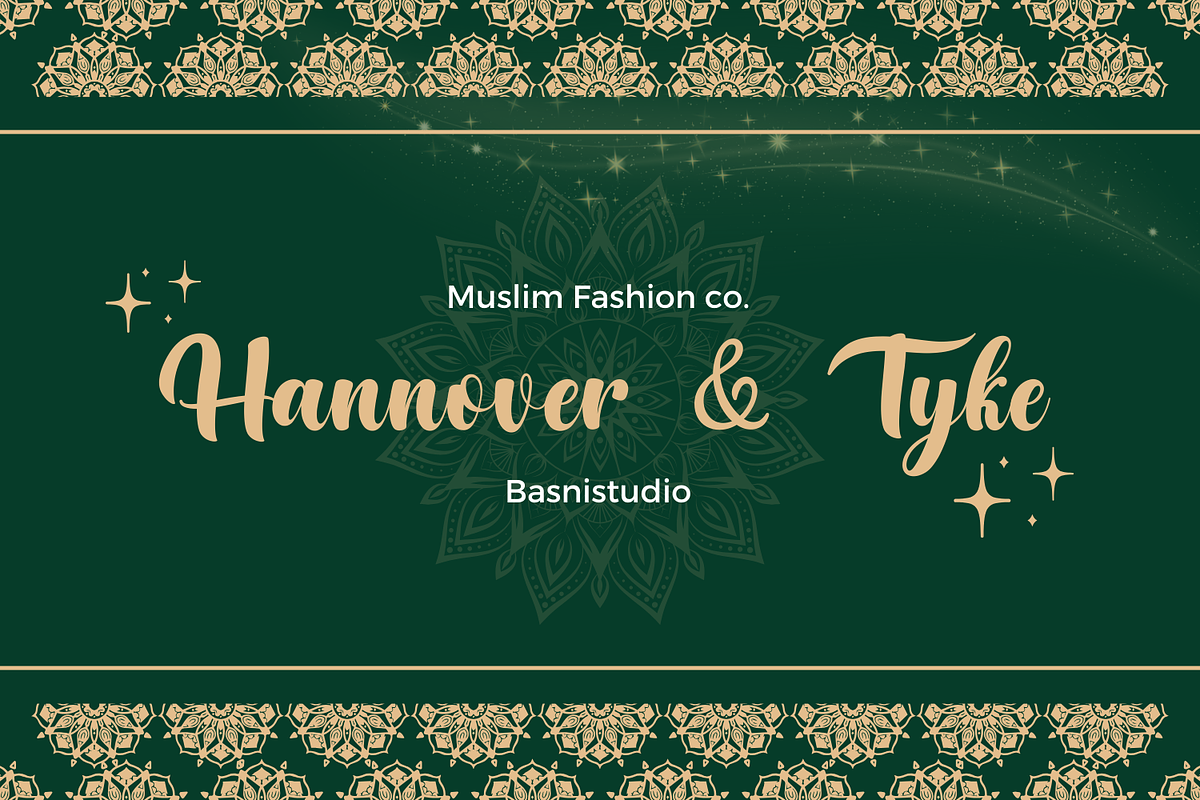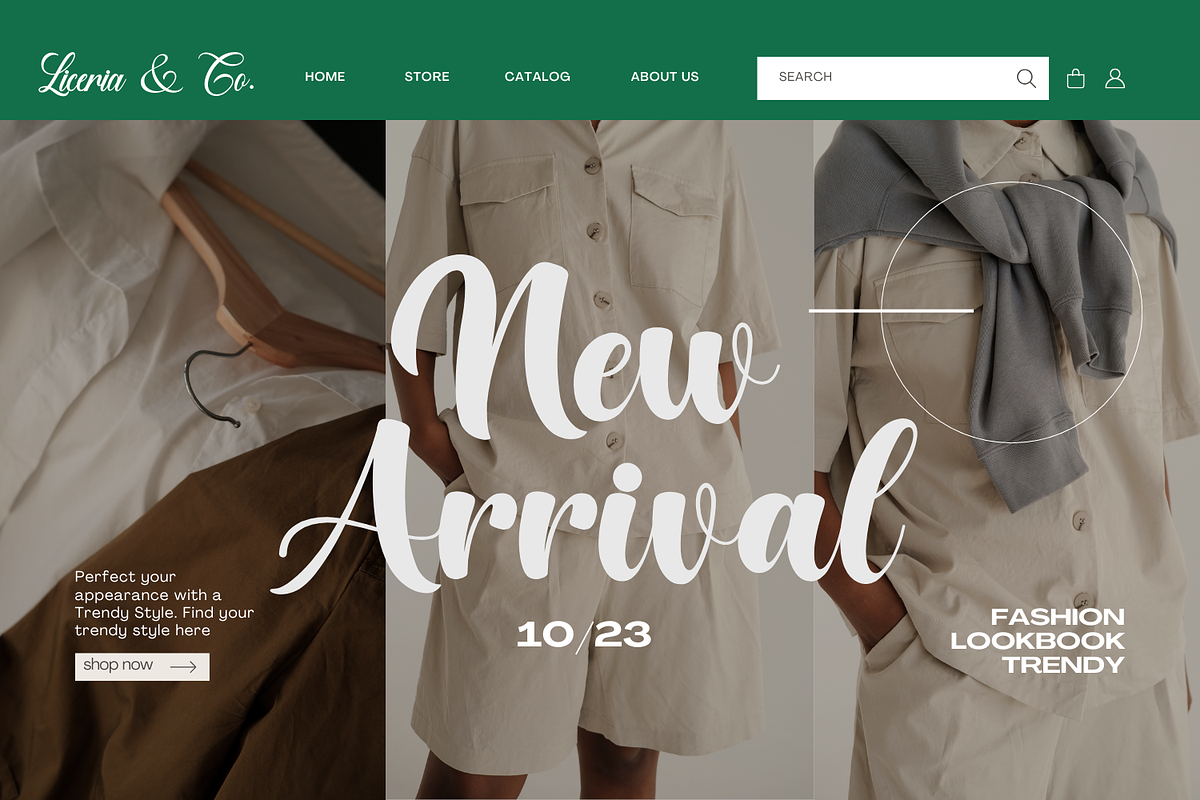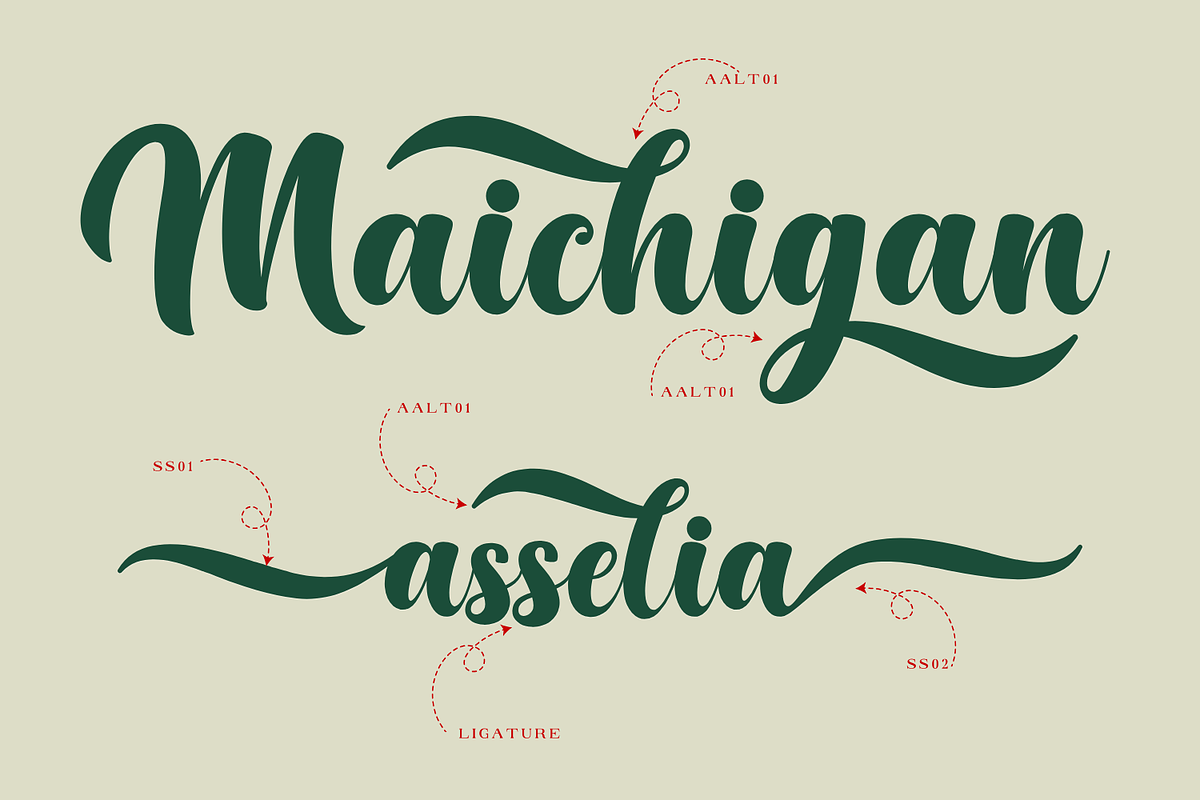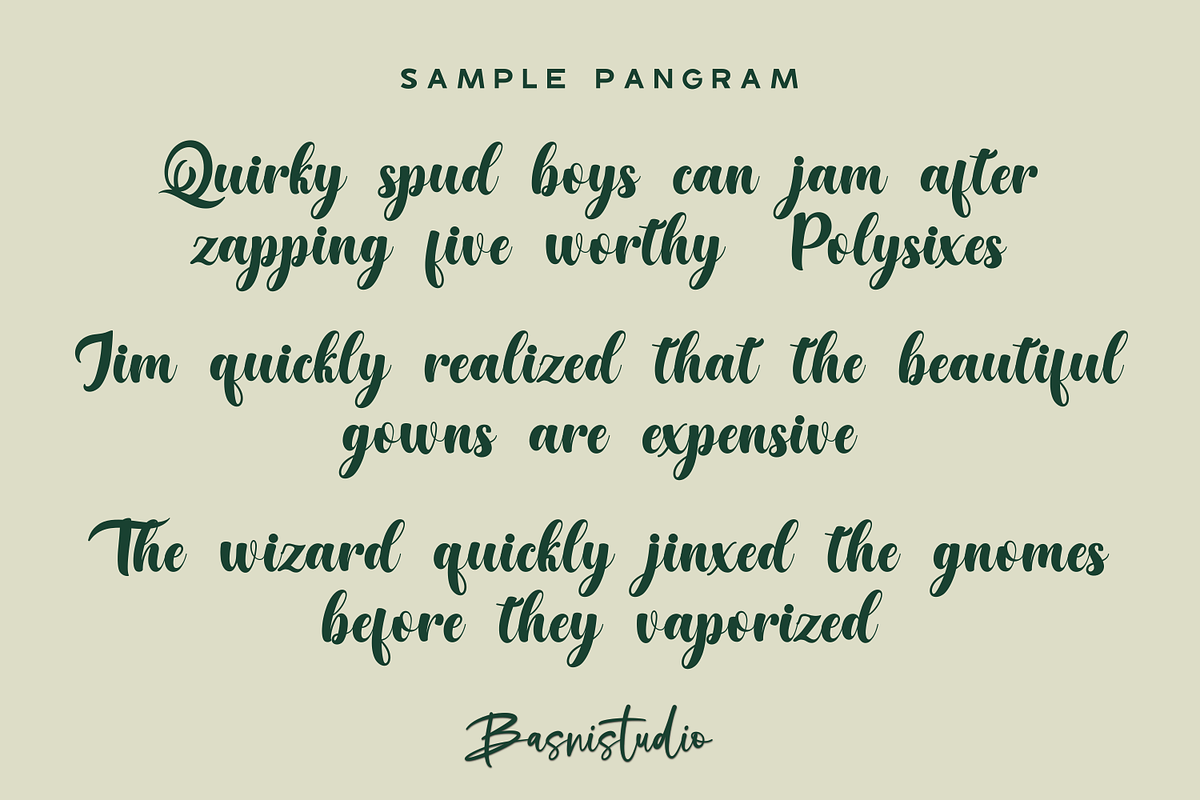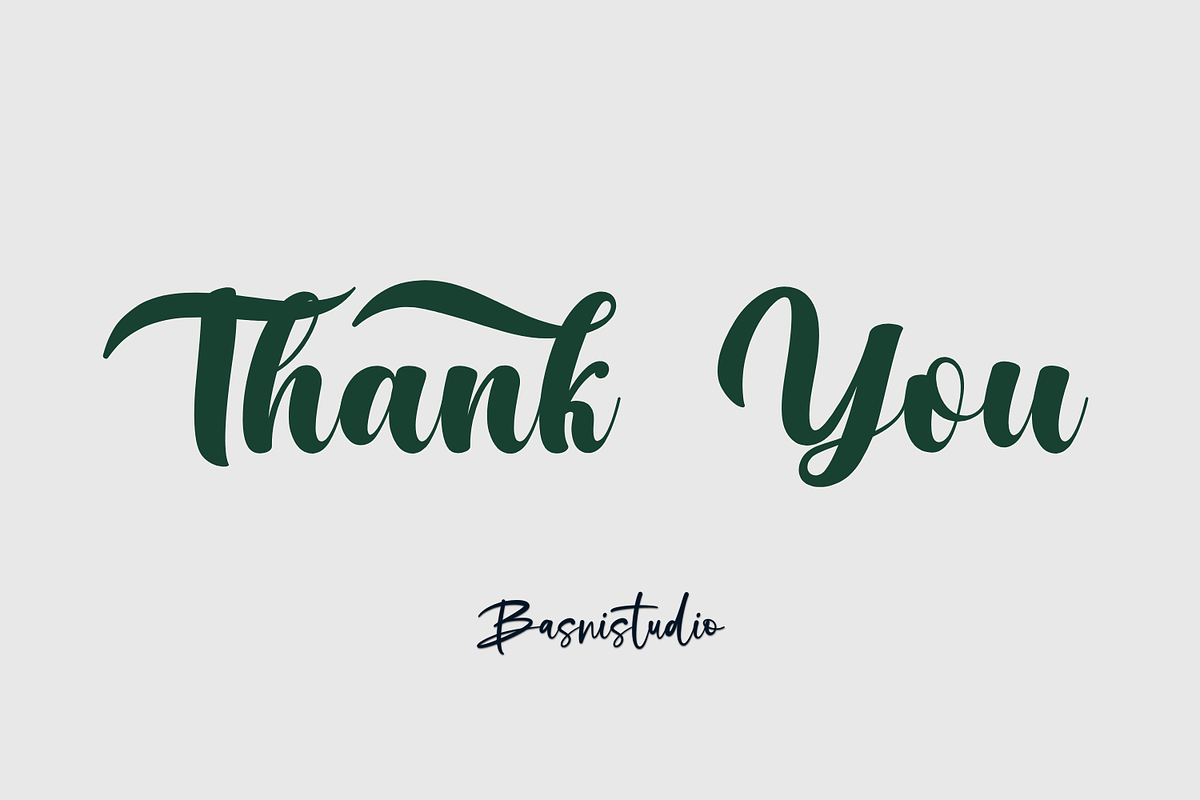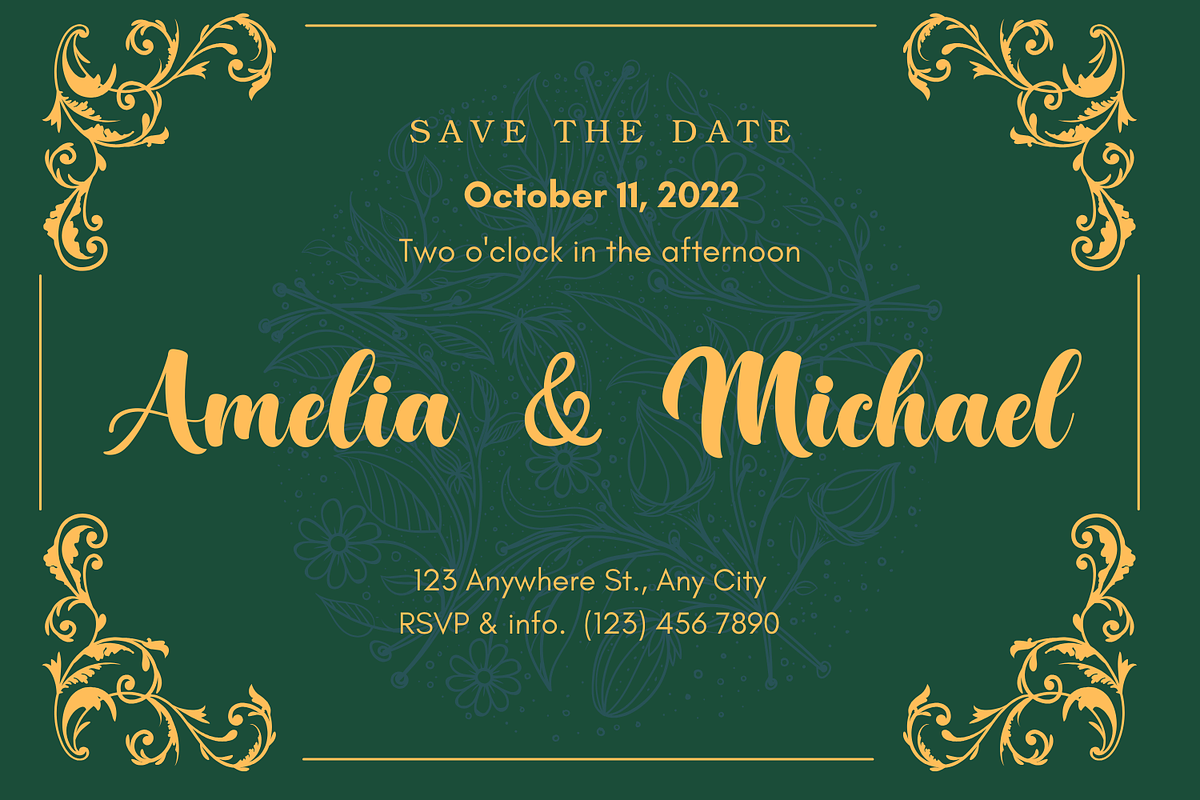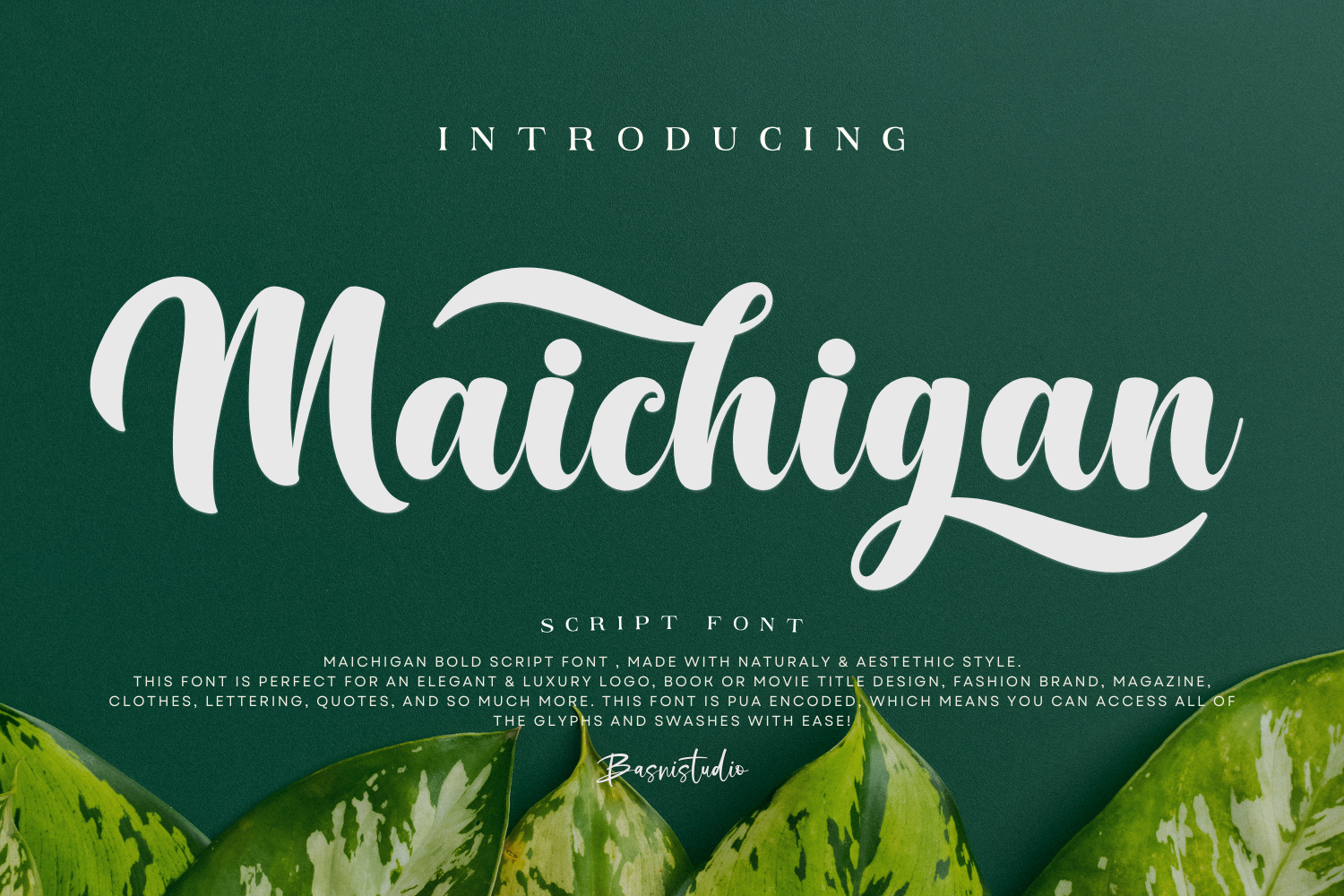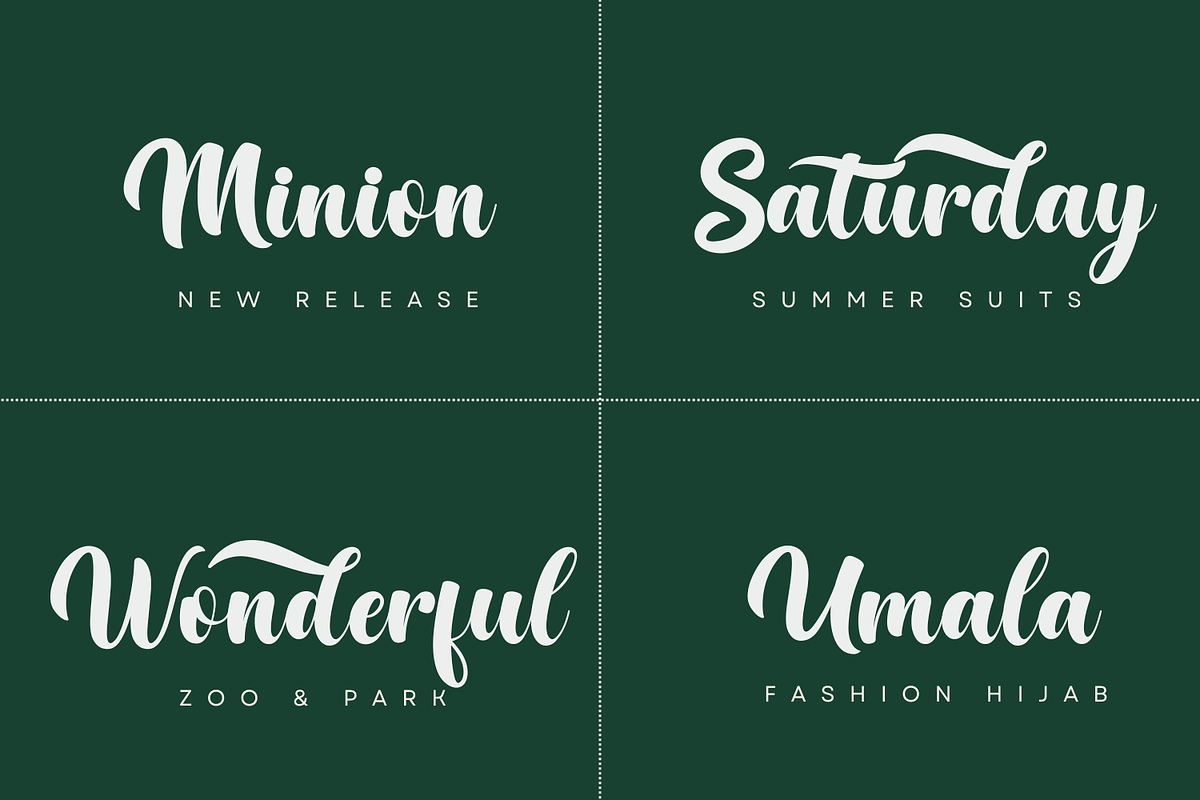
Maichigan Bold Script Font
Introducing Maichigan Bold Script Font
Maichigan Bold Script Font, made with Naturaly & Aestethics Style.
This Font is perfect for an elegant & luxury logo, book or movie title design, fashion brand, magazine, clothes, lettering, quotes, and so much more. This font is PUA encoded, which means you can access all of the glyphs and swashes with ease!